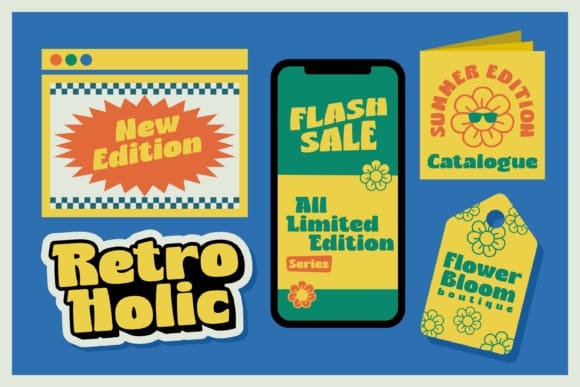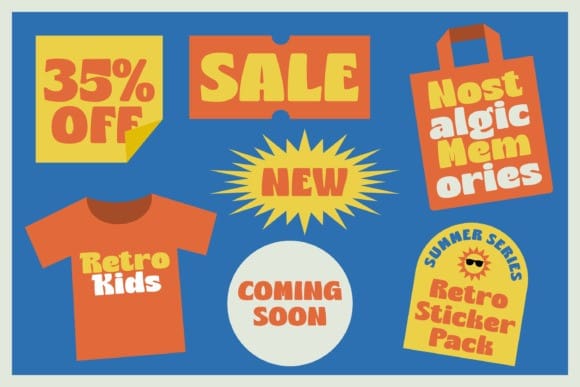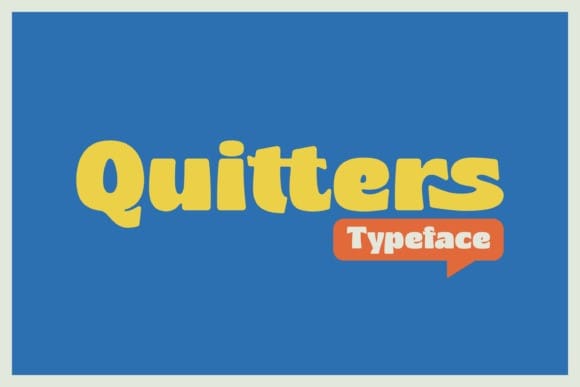
Quitters Display Font
Quitters Display Font is a Pop, groovy, and retro typeface with fun vibes. Inspired by retro bold typography. Quitters feels playfully nostalgic and delivers an incredible vintage retro aesthetic. This font is perfect for a design that requires a playful and fun accent. Wizard is suitable for book covers, posters, packaging, merchandise, logotypes, font logos, stickers and much more. Use this display font to add that special retro touch to any design idea you can think of!